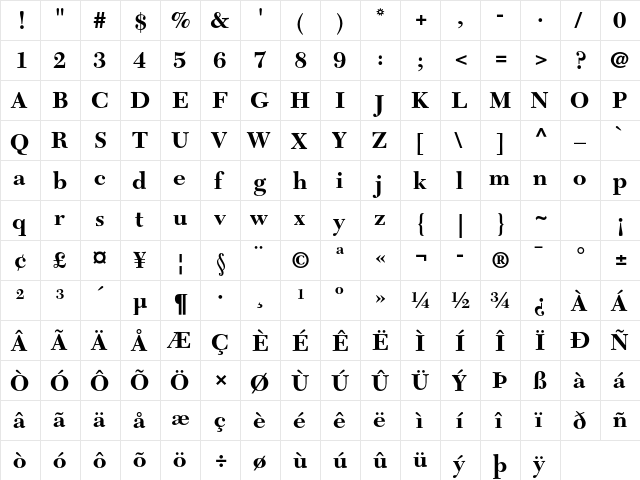
New Caledonia LT Std Bold Font Preview
New Caledonia LT Std Bold
New Caledonia LT Std Bold Font Details
| Designer | William A. Dwiggins |
Design Context for New Caledonia LT Std Typeface
New Caledonia LT Std offers clean, dependable letterforms without strong stylistic allegiance, making it a practical choice for designers who need flexibility. The heavy weight commands attention and anchors typographic hierarchies.